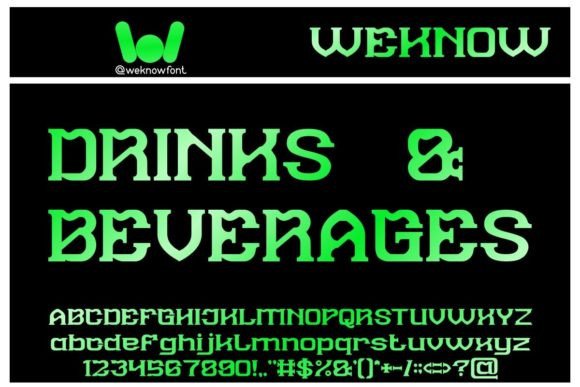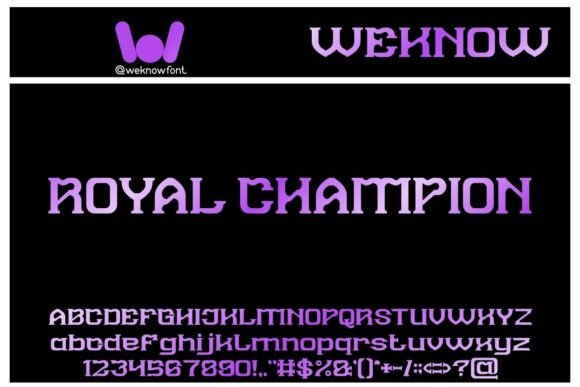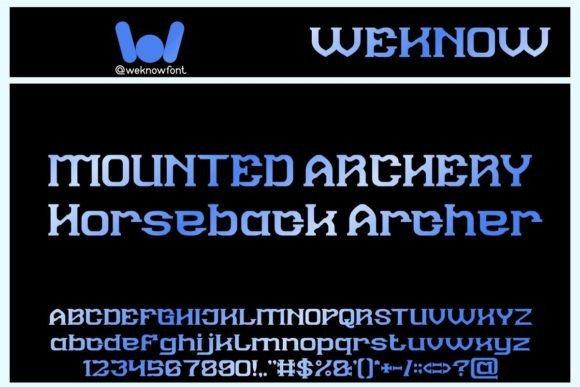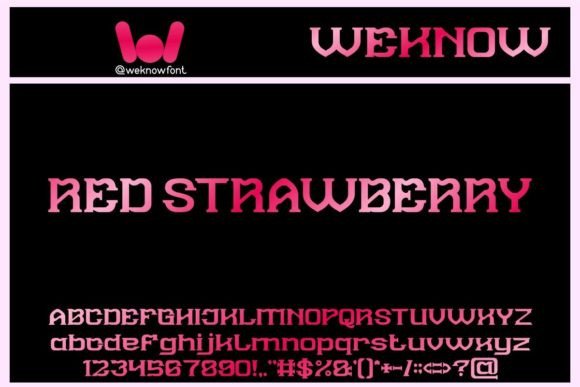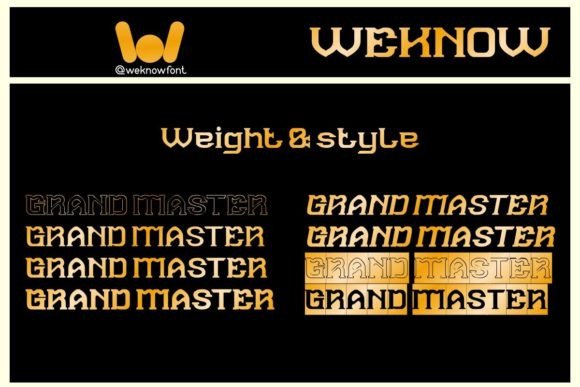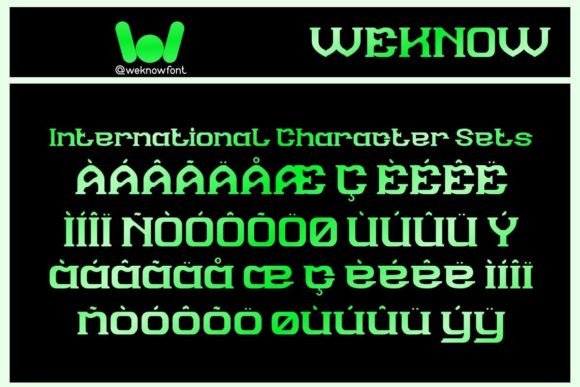
Discover the Timeless Charm of Grand Master Font
Step into a bygone era with Grand Master, a sublime slab serif vintage art font that embodies the essence of antiquated charm. This decorative gala font is the perfect choice for designers and crafters looking to add a touch of nostalgia to their creative projects. With its unique blend of classic and modern elements, Grand Master is an ideal pick for crafting distinctive logos, striking logotypes, and captivating visual designs.
The Versatility of Grand Master
One of the standout features of Grand Master is its inherent versatility. This fancy display font can be used across a wide range of industries and applications, from fashion and apparel to music, movies, and games. Its nostalgic hues and vintage art style make it an excellent fit for brands looking to revamp their corporate image or underscore their brand essence.
Perfect for the Apparel Industry
In the apparel industry, Grand Master font echoes style in every thread. Its unique blend of classic and modern elements makes it an excellent choice for fashion brands looking to create distinctive logos, labels, and packaging designs. Whether you’re designing a logo for a luxury fashion brand or creating a label for a vintage-inspired clothing line, Grand Master is the perfect font to add a touch of sophistication and elegance.
Adding an Extra Dimension to Posters and Visual Designs
Grand Master font is also an excellent choice for creating striking posters, flyers, and visual designs. Its decorative gala style adds an extra dimension to any design, making it perfect for music, movie, and game projects. With Grand Master, you can create eye-catching posters, flyers, and social media graphics that capture the attention of your audience and leave a lasting impression.
Bringing Timeless Allure to Magazines and Books
For designers and publishers looking to add a touch of timeless allure to their magazines and books, Grand Master font is an excellent choice. Its classic and elegant style makes it perfect for creating captivating headlines, titles, and captions that draw readers in and keep them engaged. Whether you’re designing a magazine cover or creating a book layout, Grand Master font is sure to add a touch of sophistication and elegance.
Injecting Humor into Comics and Cartoons
Grand Master font is also an excellent choice for designers and cartoonists looking to inject humor and personality into their comics and cartoons. Its unique blend of classic and modern elements makes it perfect for creating playful and eye-catching titles, captions, and dialogue bubbles. With Grand Master, you can add a touch of whimsy and humor to your comics and cartoons, making them more engaging and entertaining for readers.
Engaging with Your Audience on Social Media
In today’s digital age, social media is an essential platform for designers, brands, and creators to engage with their audience. Grand Master font is an excellent choice for creating visually appealing social media graphics, YouTube videos, and Instagram posts that capture the attention of your audience and leave a lasting impression. With its unique blend of classic and modern elements, Grand Master font is sure to make your social media graphics stand out from the crowd.
Make Your Website Visually Appealing
Finally, Grand Master font is an excellent choice for designers and web developers looking to make their website visually appealing. Its decorative gala style and nostalgic hues make it perfect for creating eye-catching headlines, titles, and captions that draw visitors in and keep them engaged. With Grand Master, you can add a touch of sophistication and elegance to your website, making it more visually appealing and engaging for visitors.
In conclusion, Grand Master font is a sublime slab serif vintage art font that embodies the essence of antiquated charm. Its unique blend of classic and modern elements makes it an excellent choice for designers and crafters looking to add a touch of nostalgia to their creative projects. With its inherent versatility and decorative gala style, Grand Master font is perfect for a wide range of applications, from fashion and apparel to music, movies, and games. Whether you’re designing a logo, creating a poster, or making your website visually appealing, Grand Master font is sure to make your design venture a success.